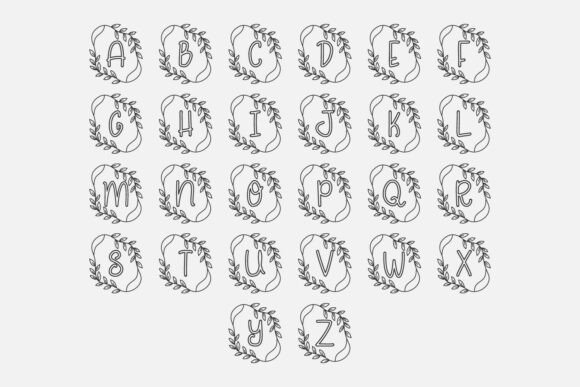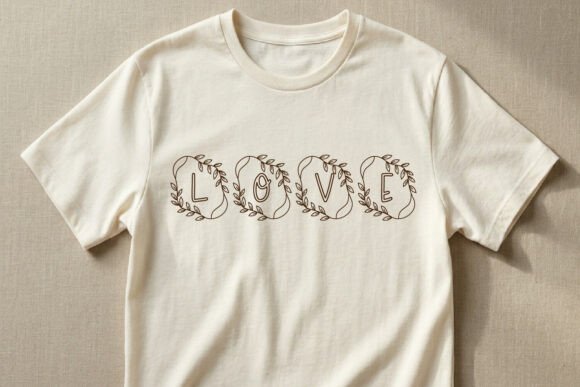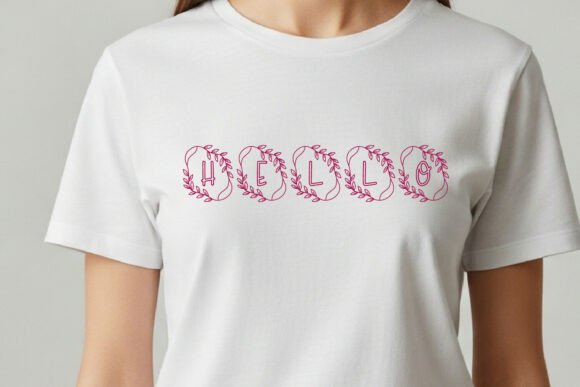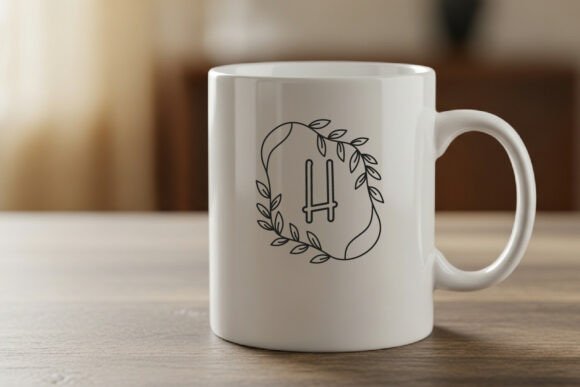
Introducing Flora Seal Monogram Font: Elevate Your Designs with Elegant Botanical Style
Are you looking for a font that exudes elegance, sophistication, and a touch of romance? Look no further than Flora Seal Monogram Font, a beautiful floral monogram font that is perfect for designers and crafters seeking to add a premium touch to their projects. In this article, we’ll explore the features and benefits of Flora Seal, and how it can elevate your designs across various applications.
What is Flora Seal Monogram Font?
Flora Seal is an elegant floral monogram font that features delicate botanical wreath details and beautifully crafted decorative alphabet initials. Each letter is designed with soft natural floral elements, creating a timeless and sophisticated aesthetic that is sure to impress. The font’s refined botanical style brings a romantic, classy, and modern handmade feel, making it ideal for premium design use across both digital and print applications.
Key Features of Flora Seal Monogram Font
- Elegant Floral Design: Flora Seal features intricate floral wreath details and decorative alphabet initials, perfect for creating luxurious and sophisticated designs.
- Botanical Style: The font’s botanical style is inspired by nature, with soft natural floral elements that evoke a sense of romance and elegance.
- Timeless Aesthetic: Flora Seal’s classic design ensures that your projects will stand the test of time, remaining stylish and relevant for years to come.
- Versatile: The font is perfect for a wide range of applications, including wedding invitations, luxury logos, branding projects, stationery design, social media templates, Cricut and Silhouette crafts, and personalized creative projects.
Use Cases for Flora Seal Monogram Font
Flora Seal Monogram Font is an incredibly versatile font that can be used in a variety of design projects. Here are some ideas to get you started:
- Wedding Invitations: Add a touch of elegance and sophistication to your wedding invitations with Flora Seal’s beautiful floral monograms.
- Luxury Logos: Create a luxurious brand identity with Flora Seal’s refined botanical style, perfect for high-end fashion, beauty, and lifestyle brands.
- Branding Projects: Use Flora Seal to create a cohesive brand image across various marketing materials, including business cards, letterheads, and packaging.
- Stationery Design: Add a touch of elegance to your stationery with Flora Seal’s beautiful floral monograms, perfect for personal or business use.
- Social Media Templates: Create visually stunning social media templates with Flora Seal, perfect for bloggers, influencers, and small business owners.
- Cricut and Silhouette Crafts: Use Flora Seal to create personalized crafts, such as custom vinyl decals, iron-on designs, and paper crafts.
Benefits of Using Flora Seal Monogram Font
By using Flora Seal Monogram Font, you can:
- Elevate Your Designs: Add a touch of elegance and sophistication to your designs with Flora Seal’s refined botanical style.
- Save Time: With Flora Seal’s beautifully crafted decorative alphabet initials, you can save time and effort in creating custom monograms.
- Stand Out: Use Flora Seal to create unique and eye-catching designs that will help you stand out from the crowd.
| Font Name | Flora Seal Monogram Font |
| Author | The Kazis Kraft |
Flora Seal Monogram Font is a beautiful and versatile font that is perfect for designers and crafters seeking to add a premium touch to their projects. With its elegant floral design, botanical style, and timeless aesthetic, Flora Seal is sure to elevate your designs and help you stand out from the crowd. Whether you’re creating wedding invitations, luxury logos, or personalized crafts, Flora Seal Monogram Font is an excellent choice.